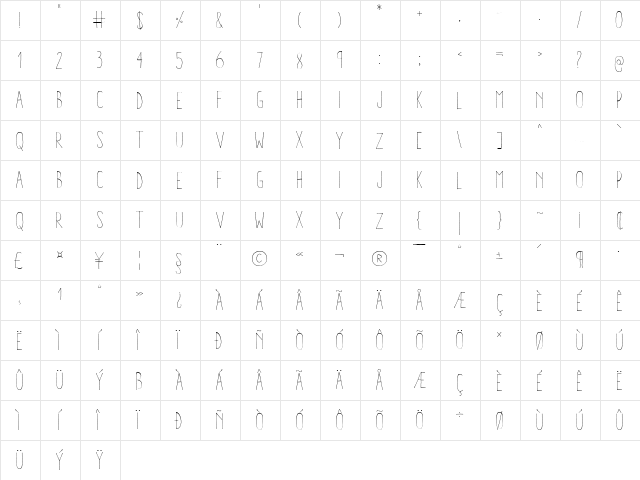
Aracne Condensed Light Condensed Light
| Foundry | Julia Martinez Diana, Antipixel. |
| Designer | Julia Martinez Diana, Antipixel |
Design Context for Aracne Condensed Light Typeface
Aracne Condensed Light is a composed and adaptable typeface that performs quietly and consistently across a wide range of design contexts. Its slender proportions lend an understated elegance to any composition. The condensed width makes it efficient for tight spaces without sacrificing legibility.